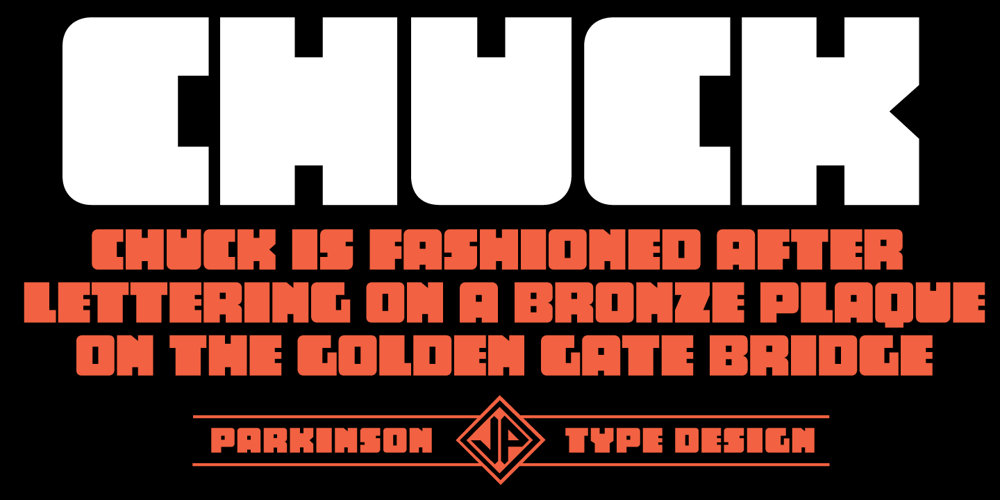
Chuck
Chuck font
Chuck Font Family was designed by Jim Parkinson and published by Parkinson. Chuck contains 1 styles and family package options. Chuck. Designed in 2004 by Jim Parkinson. Originally released as a Type 1 font, Chuck was refreshed (version2) and re-released as simple Open Type in 2012. The models for this massive Deco typeface appear on a bronze plaque on the South Tower of the Golden Gate Bridge. The plaque commemorates the builders of the bridge.